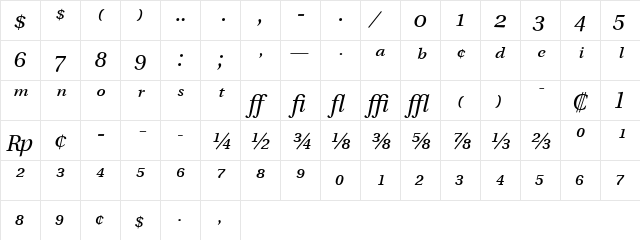
UtopiaExp Italic
Design Context for UtopiaExp Typeface
UtopiaExp is a composed and adaptable typeface that performs quietly and consistently across a wide range of design contexts. The dynamic lean of this cut emphasises speed and emphasis in any layout.
Pro Tip: Try UtopiaExp for annotation and caption copy alongside an upright companion — the contrast in angle creates a dynamic but ordered typographic system.